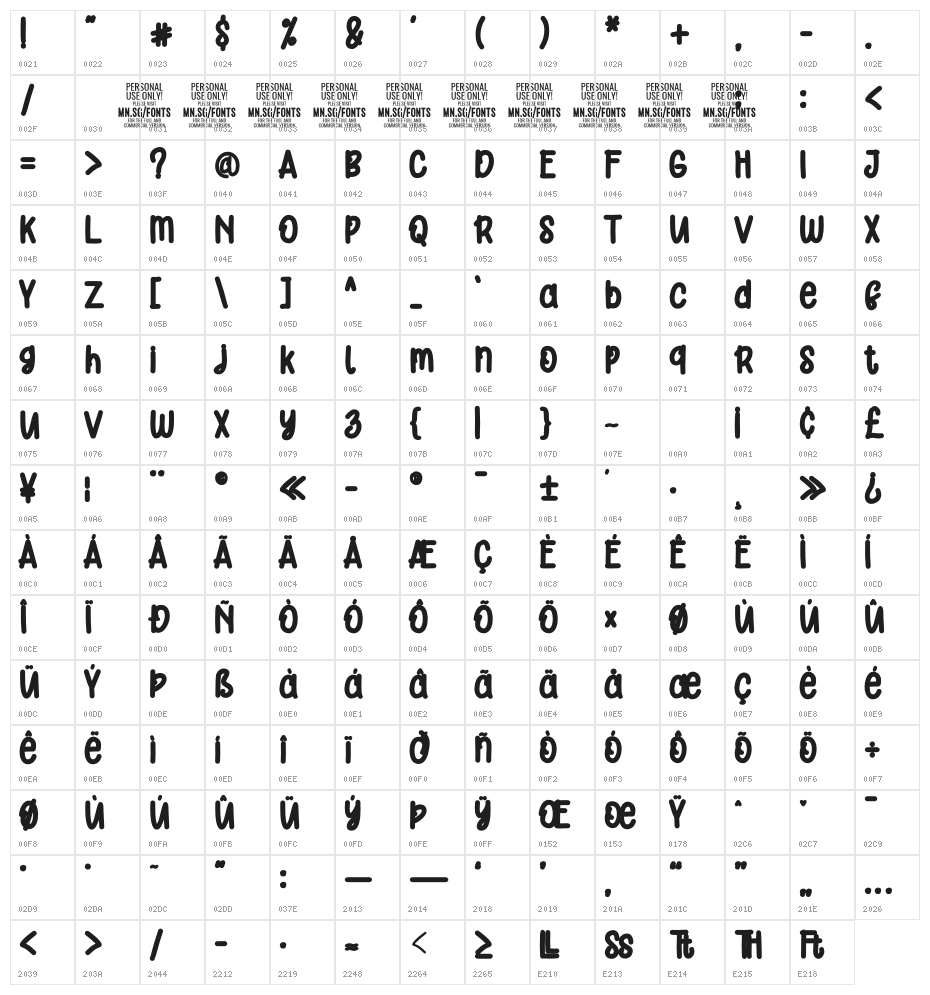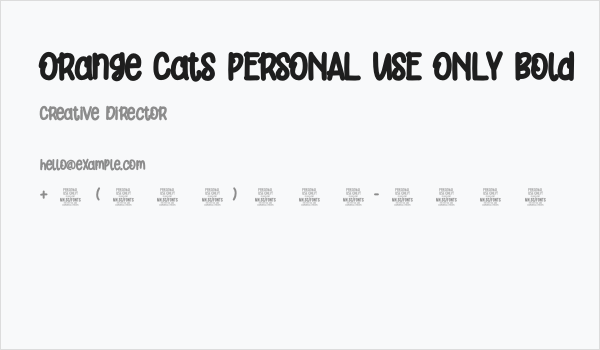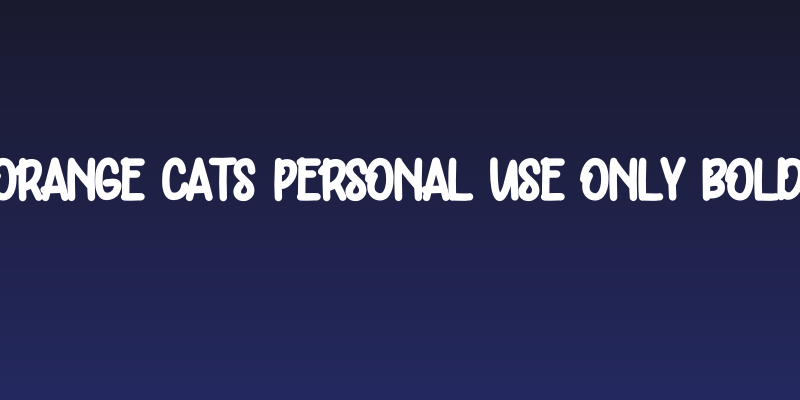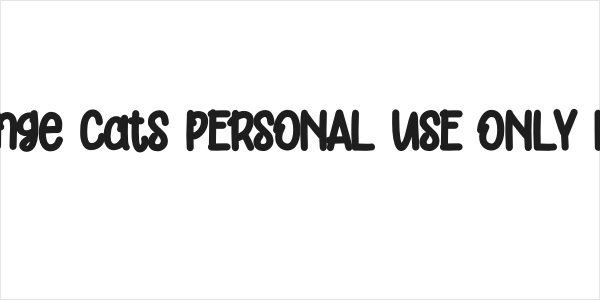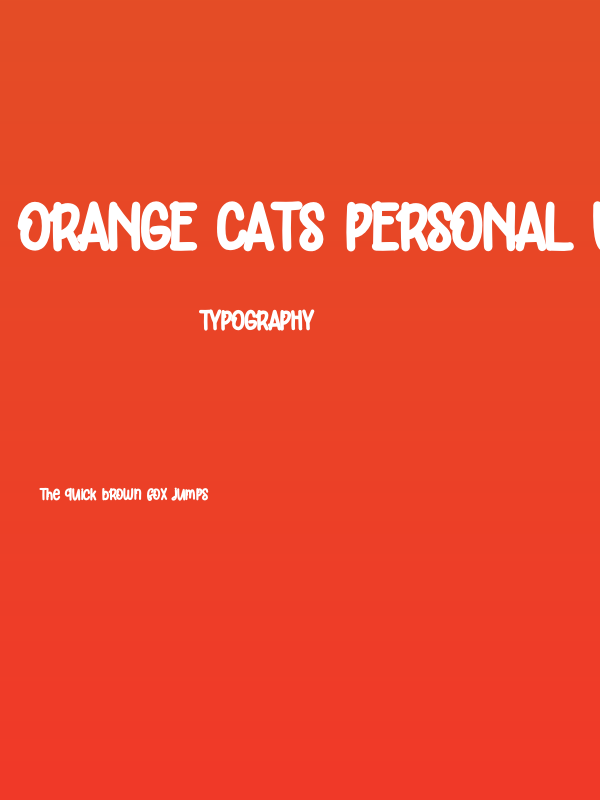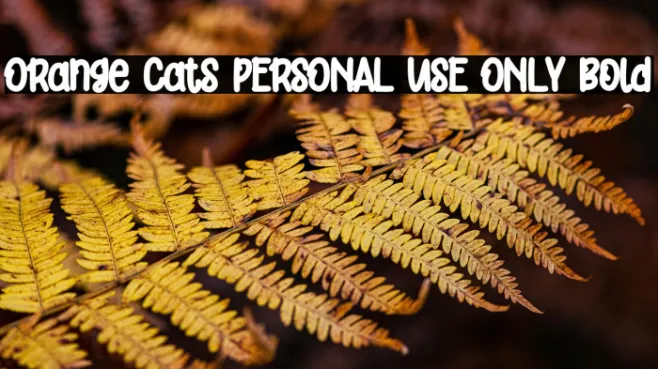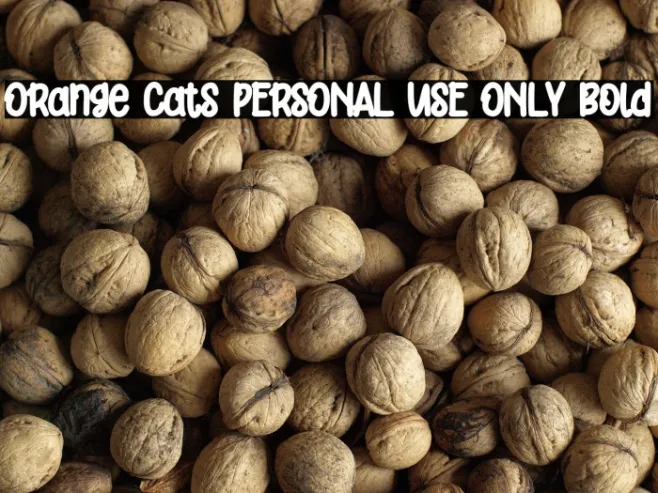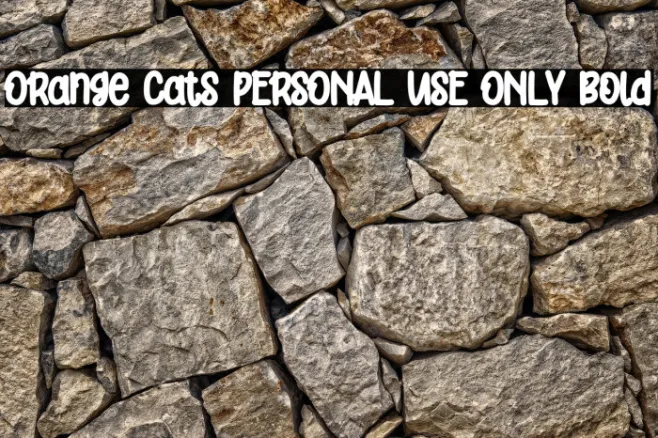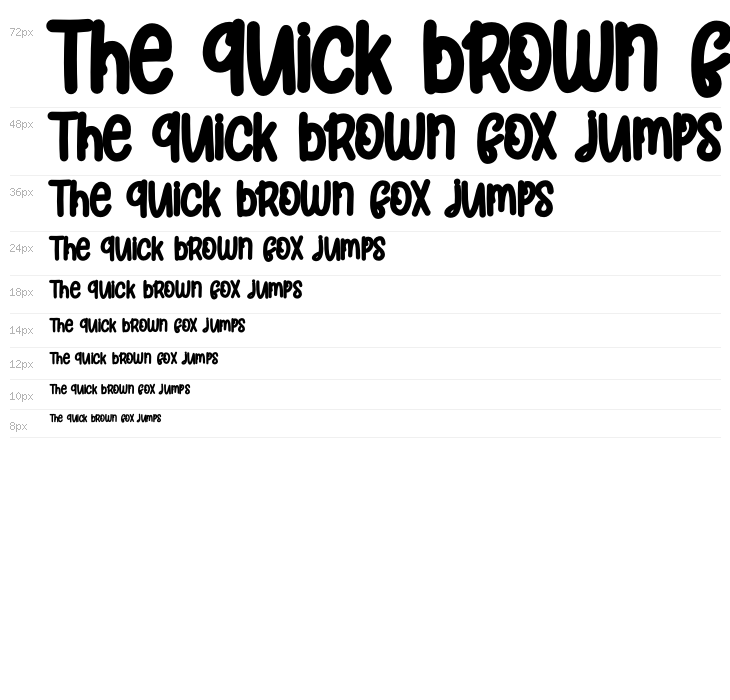
Orange Cats PERSONAL USE ONLY Bold Font
Orange Cats PERSONAL USE ONLY Bold Description
This font features a bold and playful style with thick, rounded strokes that give it a friendly and approachable appearance. The characters are closely spaced, creating a compact look that enhances its boldness. The uppercase and lowercase letters maintain a consistent weight, contributing to a cohesive and unified design. The font's rounded edges and smooth curves add a sense of warmth and informality, making it suitable for creative and casual applications. The numerals and special characters follow the same design principles, ensuring versatility across various uses.
| Proposed Projects | Ideal for children's books, playful branding, greeting cards, and casual invitations. |